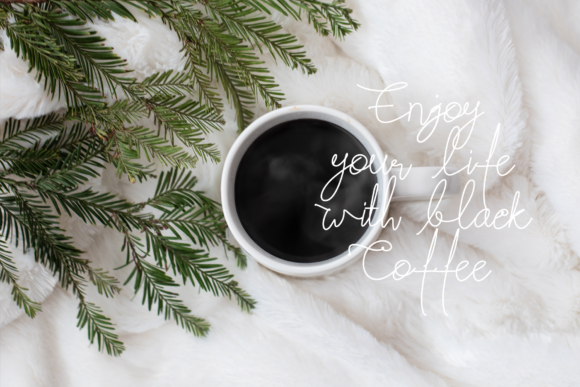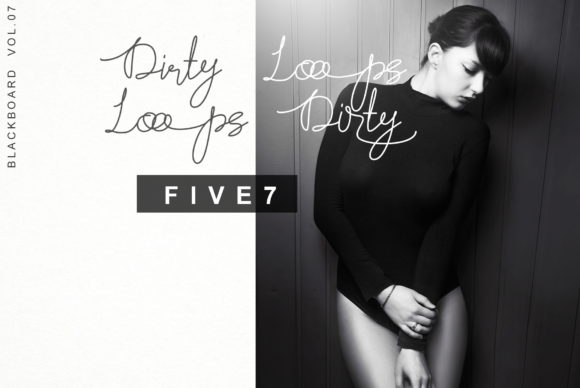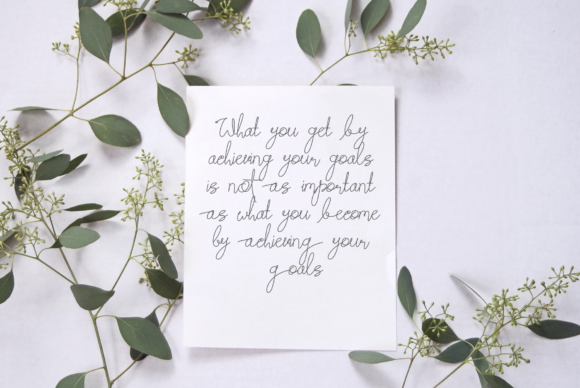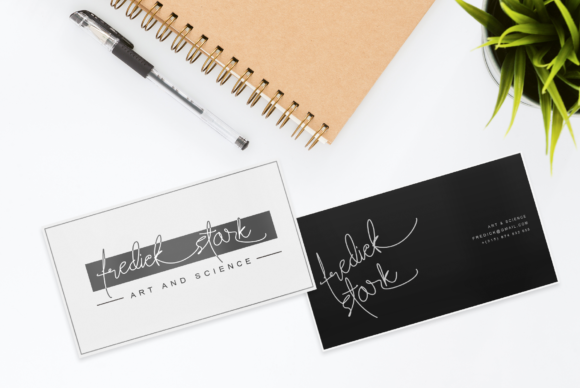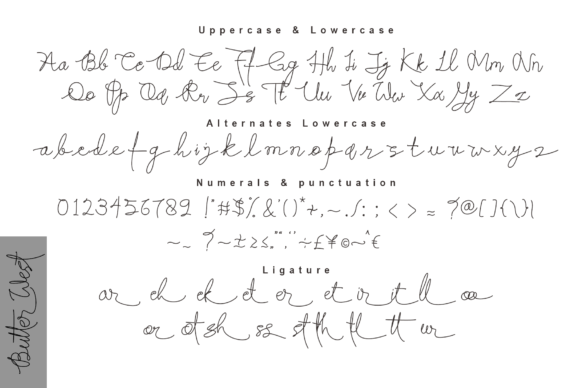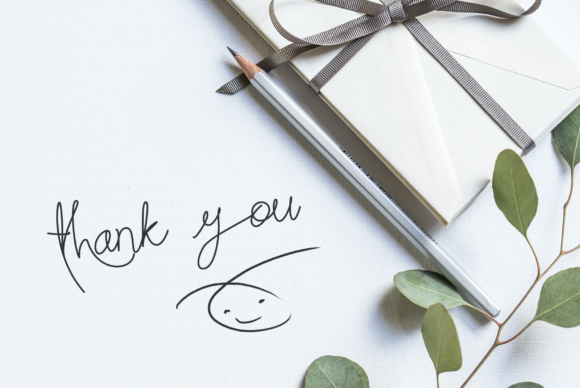
Introducing Butter West Font: Elevate Your Designs with a Touch of Classic Elegance
In the world of typography, a font can make all the difference in the aesthetic and appeal of a design. For those seeking a stylish, handwritten font that exudes a classic vibe while maintaining a friendly feel, look no further than Butter West. This beautiful font is not only visually stunning but also packed with features that make designing a breeze. In this article, we’ll dive into the details of what makes Butter West a must-have for designers and crafters alike.
A Classic Style with a Friendly Twist
Butter West Font is a stylish handwritten font that strikes the perfect balance between classic elegance and friendly approachability. Its timeless design ensures that it can be used across various projects, from modern branding to traditional crafts, without looking out of place. Whether you’re working on a sophisticated business card or a whimsical greeting card, Butter West brings a level of sophistication and charm that’s hard to achieve with more generic fonts.
PUA Encoded for Easy Access to Glyphs and Swashes
One of the standout features of Butter West Font is its PUA (Private Use Area) encoding. This means that accessing the font’s extensive range of glyphs and swashes is incredibly straightforward. Designers can easily incorporate these special characters into their work, allowing for a high degree of customization and creativity. Whether you’re looking to add a playful touch with a swash or require a specific glyph to complete a design, Butter West makes it easy to do so without complicated workarounds.
Special Features for Enhanced Design Flexibility
Beyond its PUA encoding, Butter West Font boasts a wealth of special features designed to enhance your design work. Two of the most notable features are alternate glyphs and ligatures.
• Alternate Glyphs: These provide designers with multiple versions of certain characters. This variability allows for greater control over the font’s appearance, enabling designers to customize their text without altering the font’s overall style. It’s perfect for creating a unique look or for projects where a bit of variation is needed to keep the design interesting.
• Ligatures: These are combinations of characters that are designed to fit together seamlessly, often replacing standard character sequences. Ligatures can add a professional and polished look to text, making it particularly useful for titles, headings, and any text where visual flow is important.
Butter West Font is more than just a pretty face; it’s a versatile tool that can elevate a wide range of design projects. Here are just a few examples of where Butter West can make an impact:
• Branding: Use Butter West to create a memorable logo or brand identity that stands out with its classic yet friendly aesthetic.
• Stationery: From elegant letterheads to charming greeting cards, Butter West adds a touch of sophistication and whimsy.
• Digital Design: Whether you’re designing a website, social media graphics, or digital invitations, Butter West can add a personal and inviting feel.
• Crafting: For crafters, Butter West can be used in a variety of DIY projects, such as making custom vinyl decals, iron-on designs for t-shirts, or personalized gifts.
Butter West Font is a stylish, versatile, and feature-rich addition to any designer’s toolkit. Its classic yet friendly style, combined with its extensive features such as PUA encoding, alternate glyphs, and ligatures, make it the perfect choice for a wide range of projects. Whether you’re a professional designer looking for a font that can add a unique touch to client work or a crafter seeking to personalize your DIY projects, Butter West is sure to impress. With this font, you can create original and outstanding designs that capture attention and leave a lasting impression.